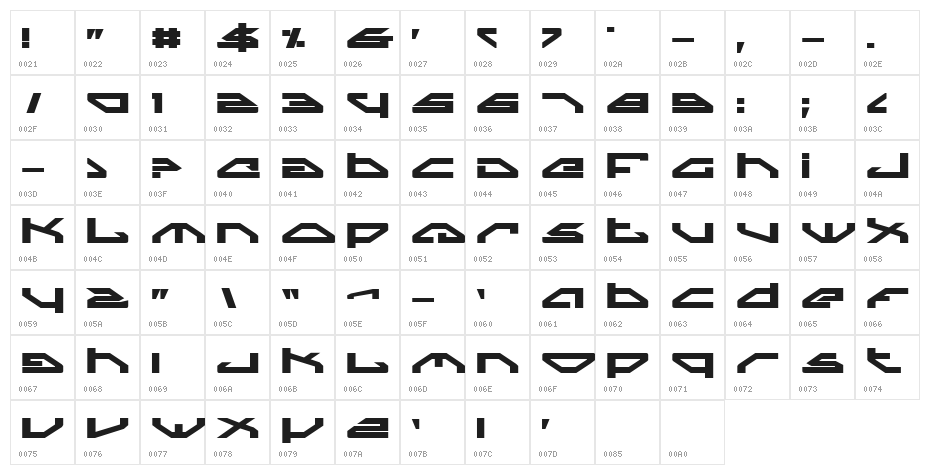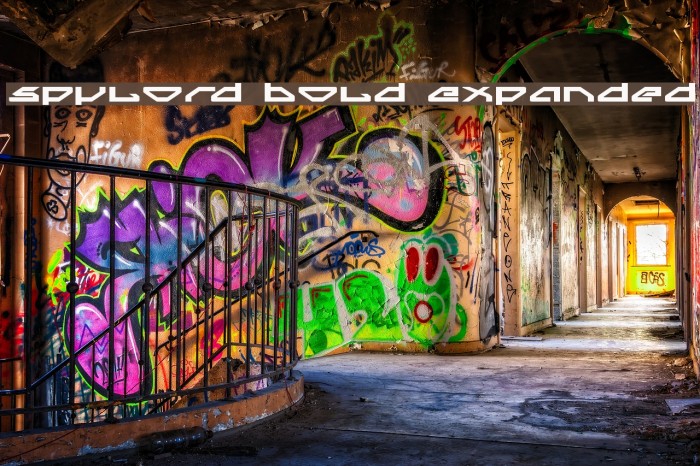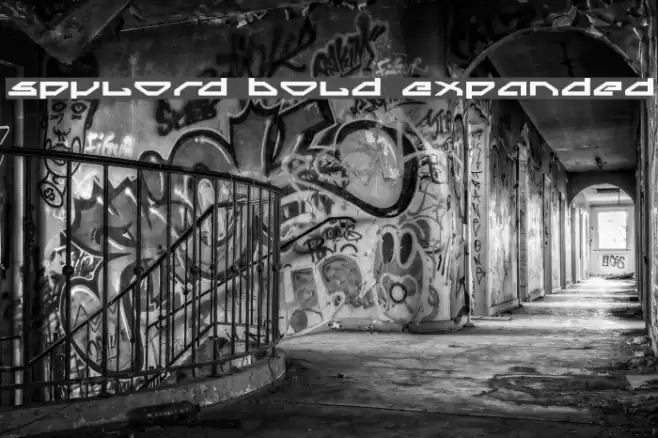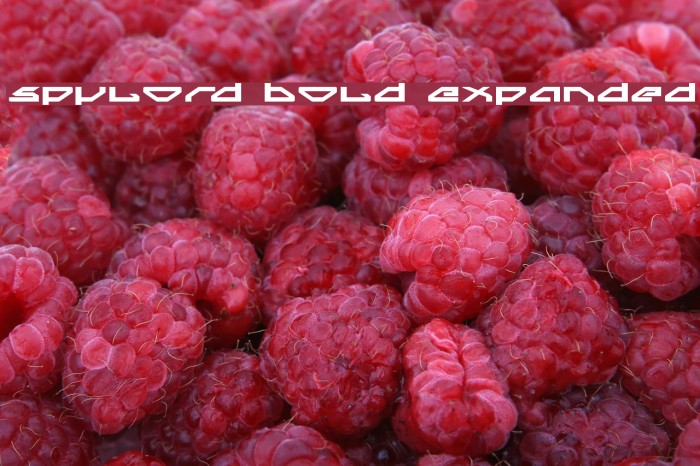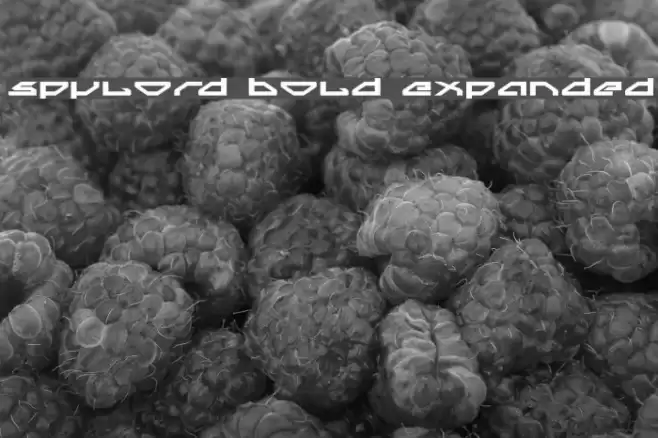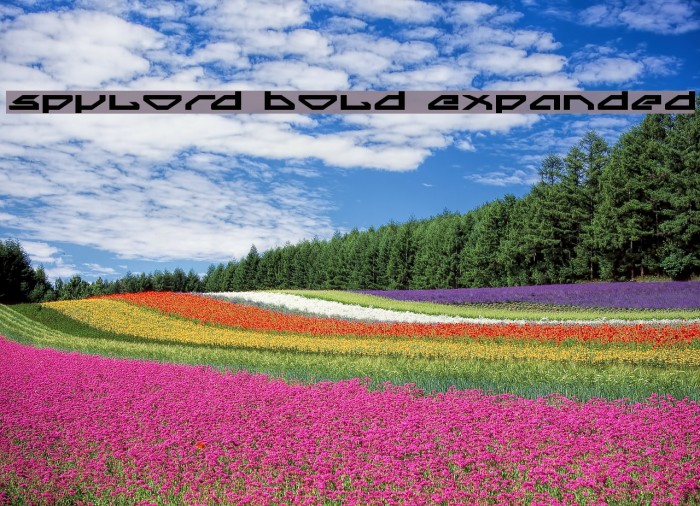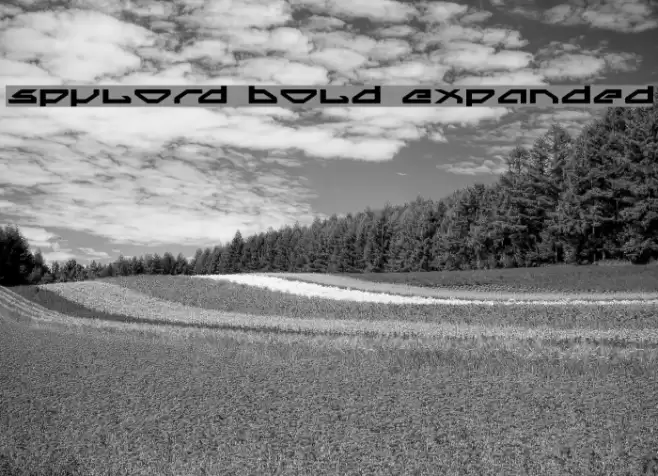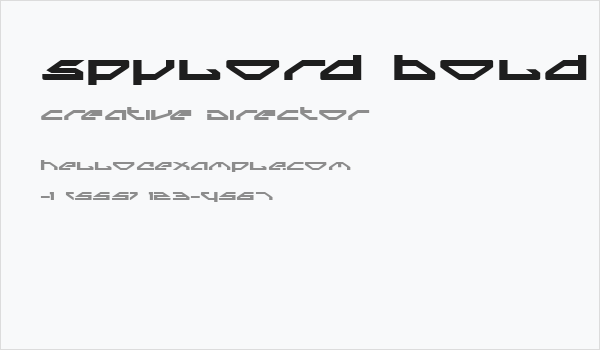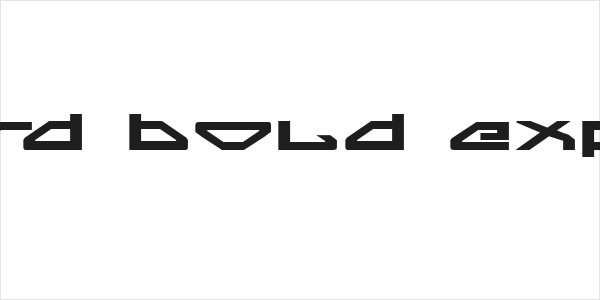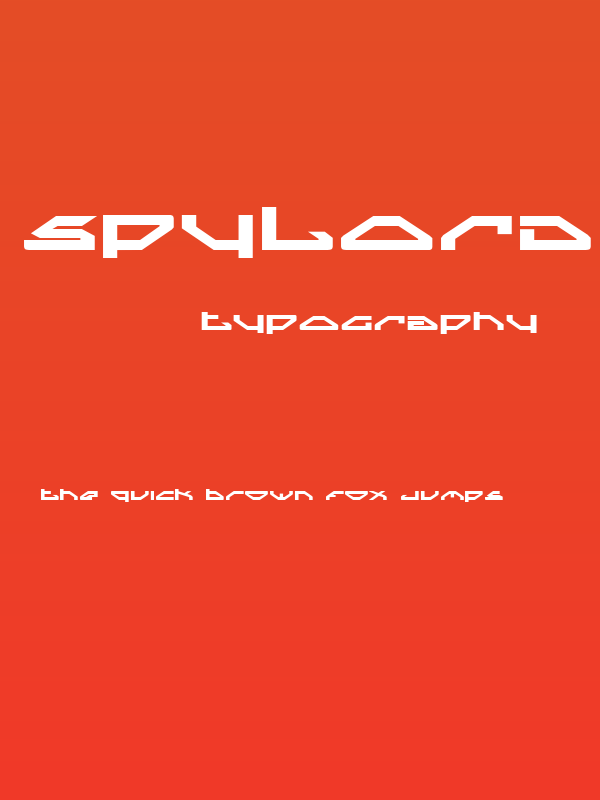
Spylord Bold Expanded Font
Spylord Bold Expanded Description
This font features a bold and expanded style with a futuristic and geometric design. The characters are constructed with sharp angles and straight lines, giving it a distinct, modern appearance. The uppercase and lowercase letters maintain a consistent style, with a unique approach to the curves and edges that make each letter stand out. The numbers and special characters follow the same design principles, ensuring uniformity across the font. This typeface is ideal for projects that require a strong, impactful visual presence.
| Proposed Projects | Ideal for sci-fi themed projects, technology branding, video game titles, and modern poster designs. |